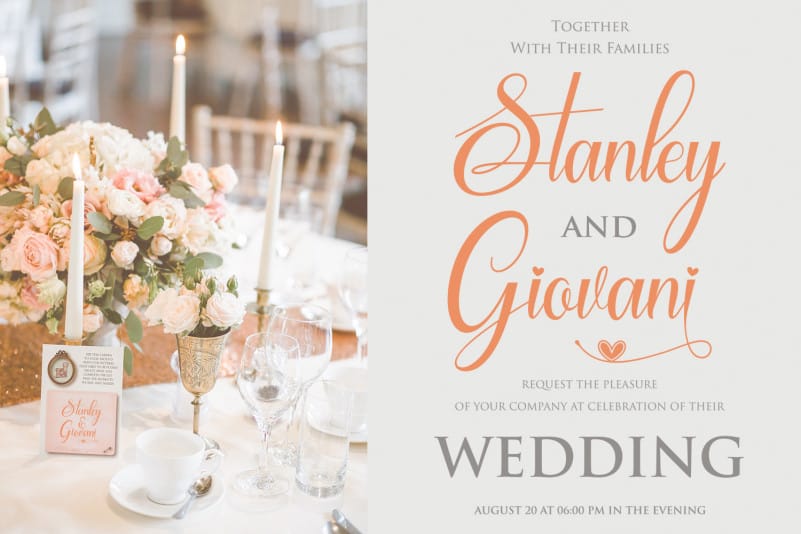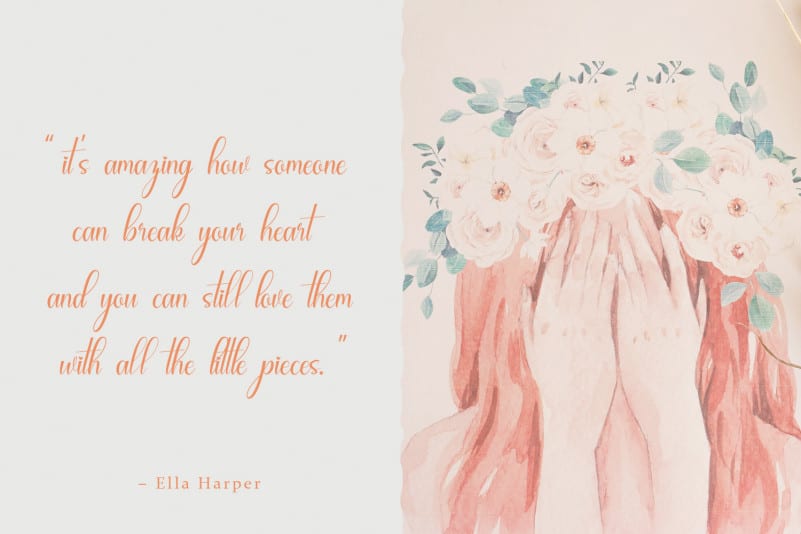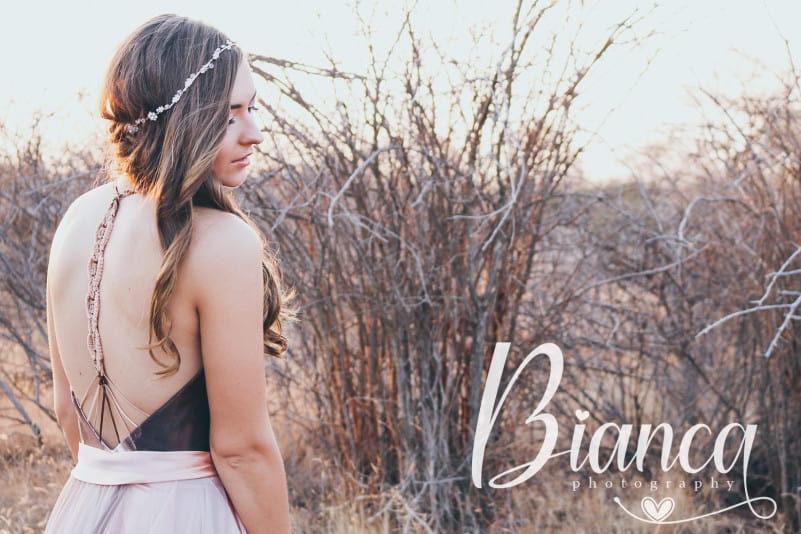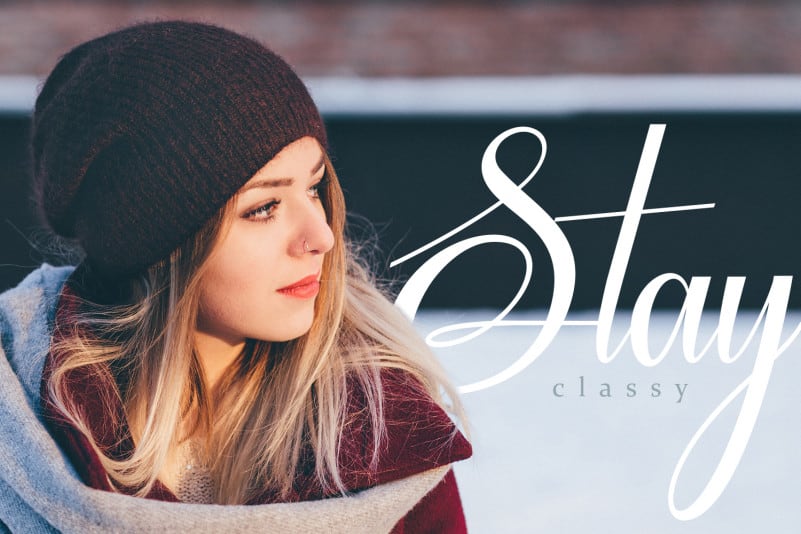
My Sunshine Calligraphy Font
My Sunshine Calligraphy Font is a romantic calligraphy font, will be suitable for any projects such as logo’s, branding projects, homeware designs, product packaging, mugs, quotes, posters, shopping bags, t-shirts, book covers, name card, invitation cards, greeting cards, label, photography, watermark, special events, and all your other lovely projects that need beautiful calligraphy taste.